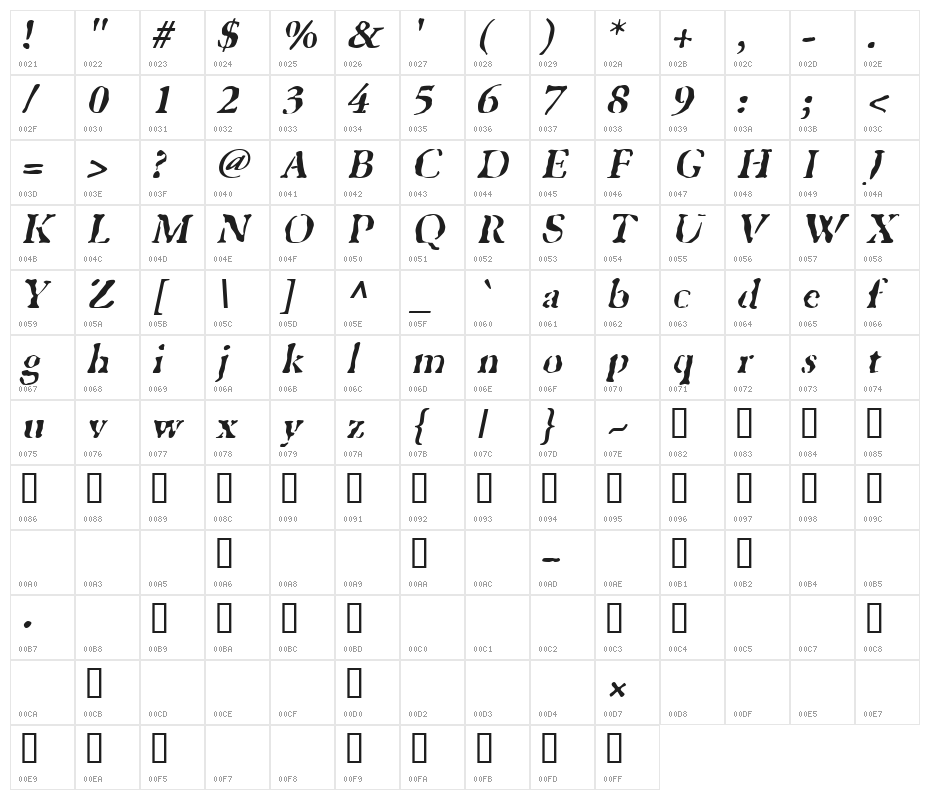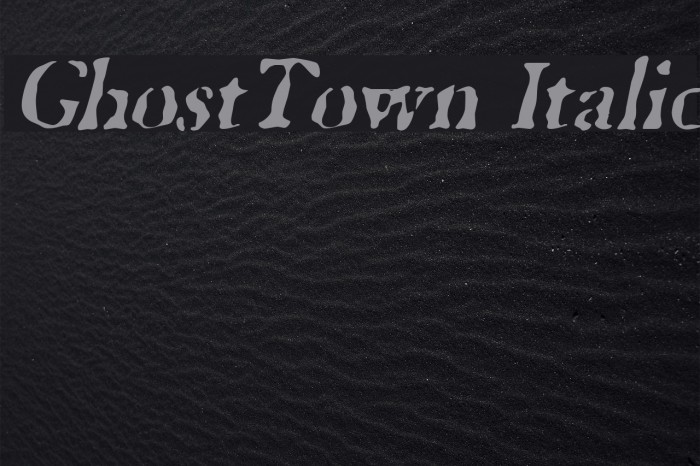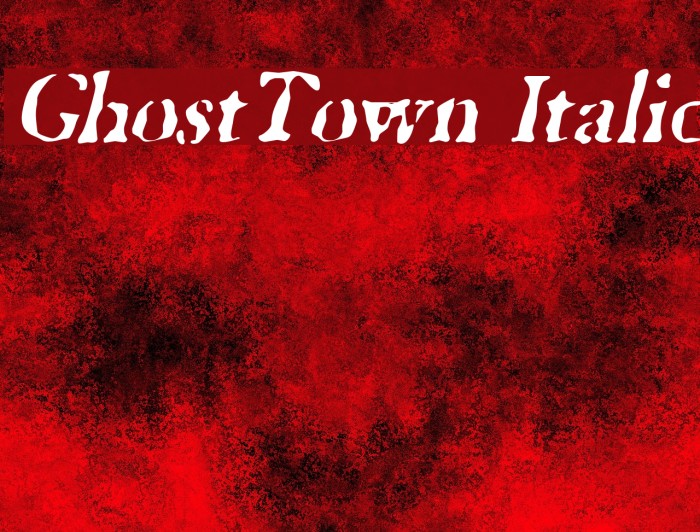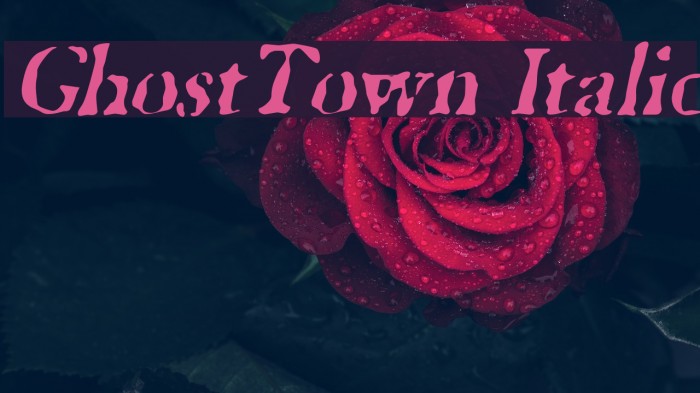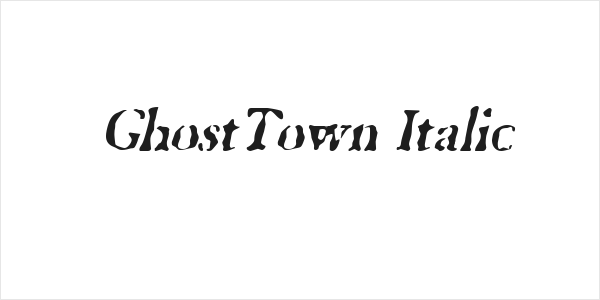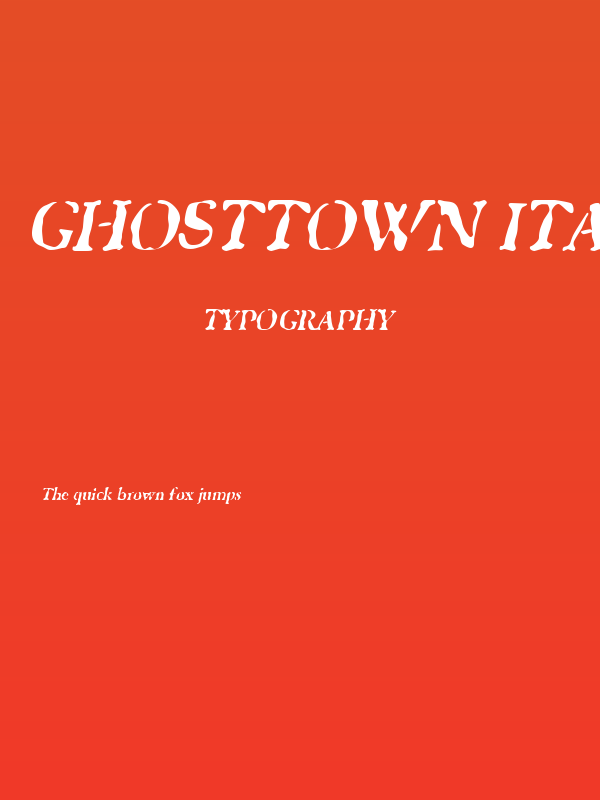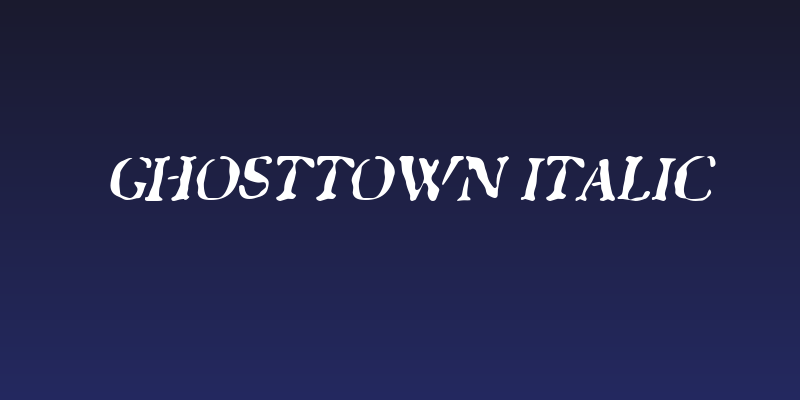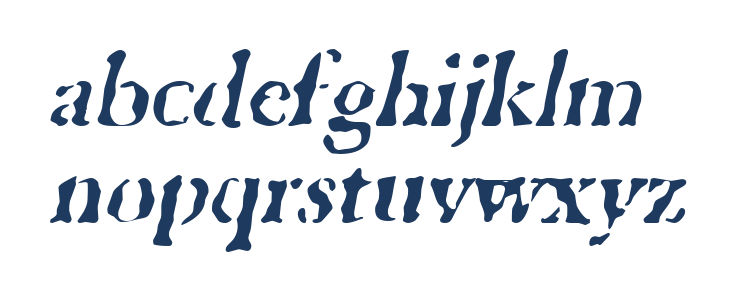
GhostTown Italic Font
GhostTown Italic Description
This font features a bold and dynamic style with a distinct italic slant, giving it a sense of movement and energy. The characters are uniquely shaped with irregular edges, creating a rough, hand-crafted appearance. This design evokes a vintage or rustic feel, reminiscent of old western or ghost town signage. The uppercase and lowercase letters maintain a consistent style, with the numerals and special characters following suit. The overall aesthetic is both decorative and impactful, making it suitable for attention-grabbing designs.
| Proposed Projects | Ideal for vintage-themed posters, Halloween decorations, or western-style branding. |